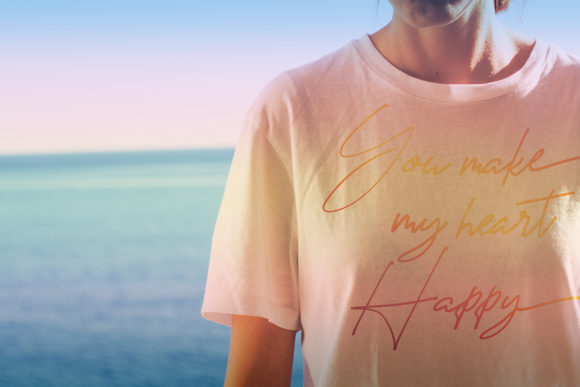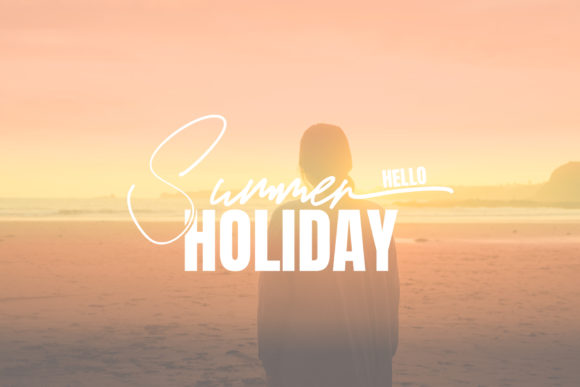
Long Beach Font
db-ku.com - Script & Handwritten -- Long Beach is a stylish signature font. It features an incredibly classic style, while still keeping a friendly feel. It will elevate a wide range of design projects to the highest level, be it branding, headings, wedding designs, invitations, signatures, logos, labels, and much more!